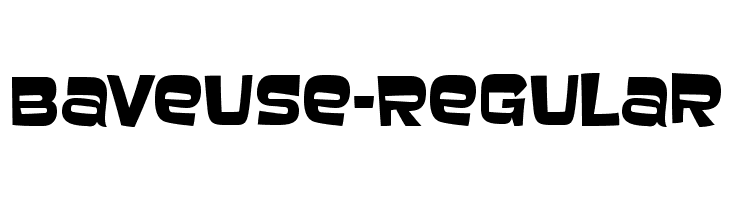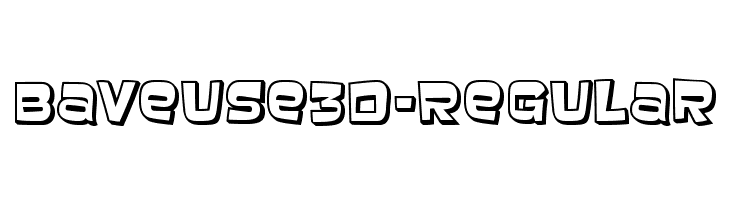
( Fonts by Blue Vinyl - Jess Latham - www.bvfonts.com )
A playful, bold handwritten font with rounded, whimsical characters.
A bold, medieval-style font with ornate, dramatic characters.
A bold, condensed uncial-style font with a historical yet modern appeal.
A bold, italicized calligraphic font with dynamic strokes and elegant flourishes.
( Fonts by SDFonts - Ritzy )
A playful, artistic font with fluid, organic shapes and a modern, abstract feel.